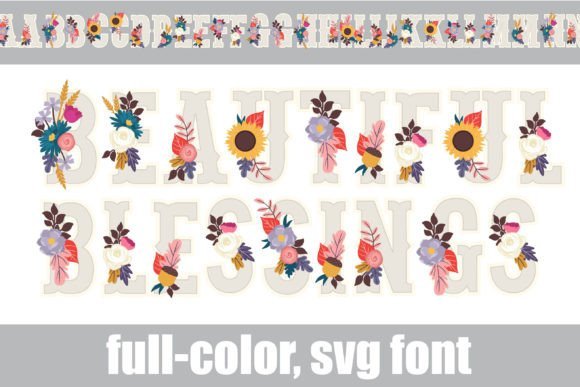
Introduction to Beautiful Blessings Font
This full-color font features a pretty Thanksgiving color palette and florals on a serif font OpenType full-color (SVG) fonts are installed like any normal .
Why Choose Beautiful Blessings Font?